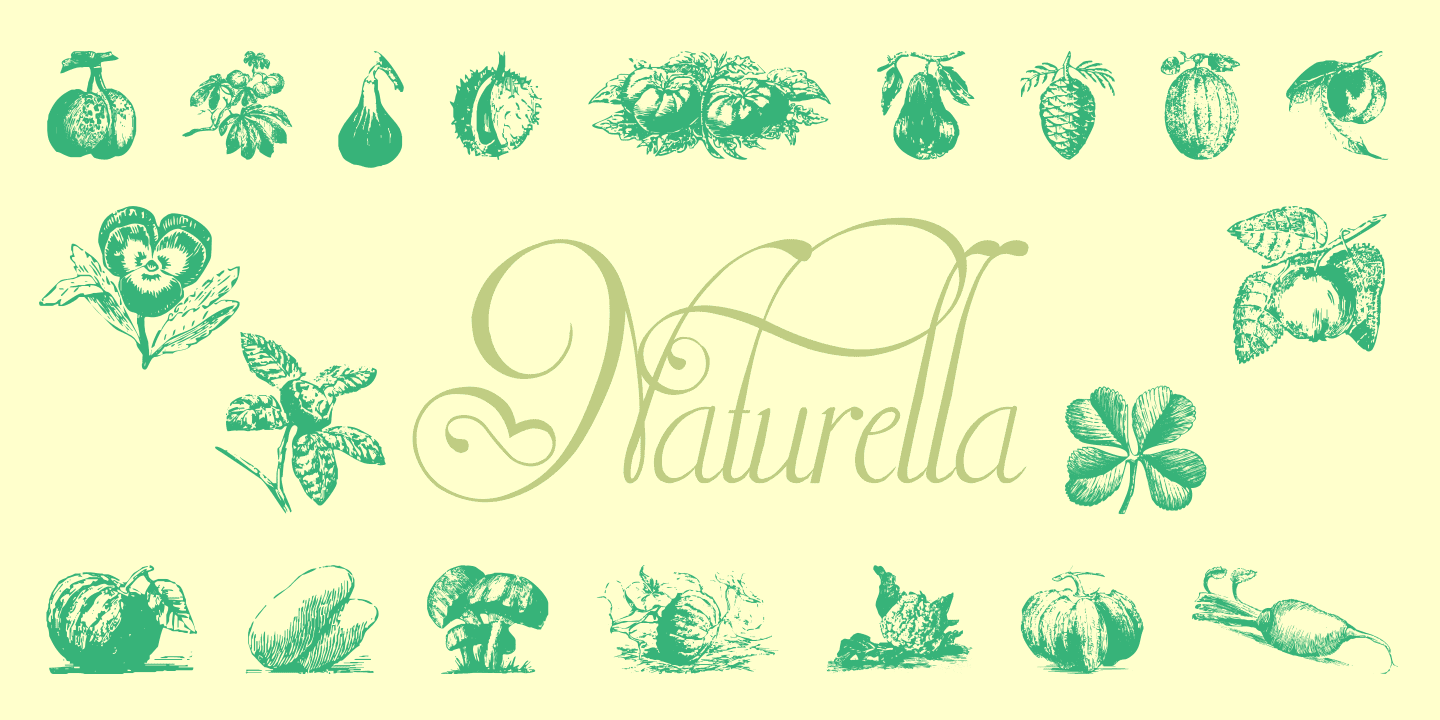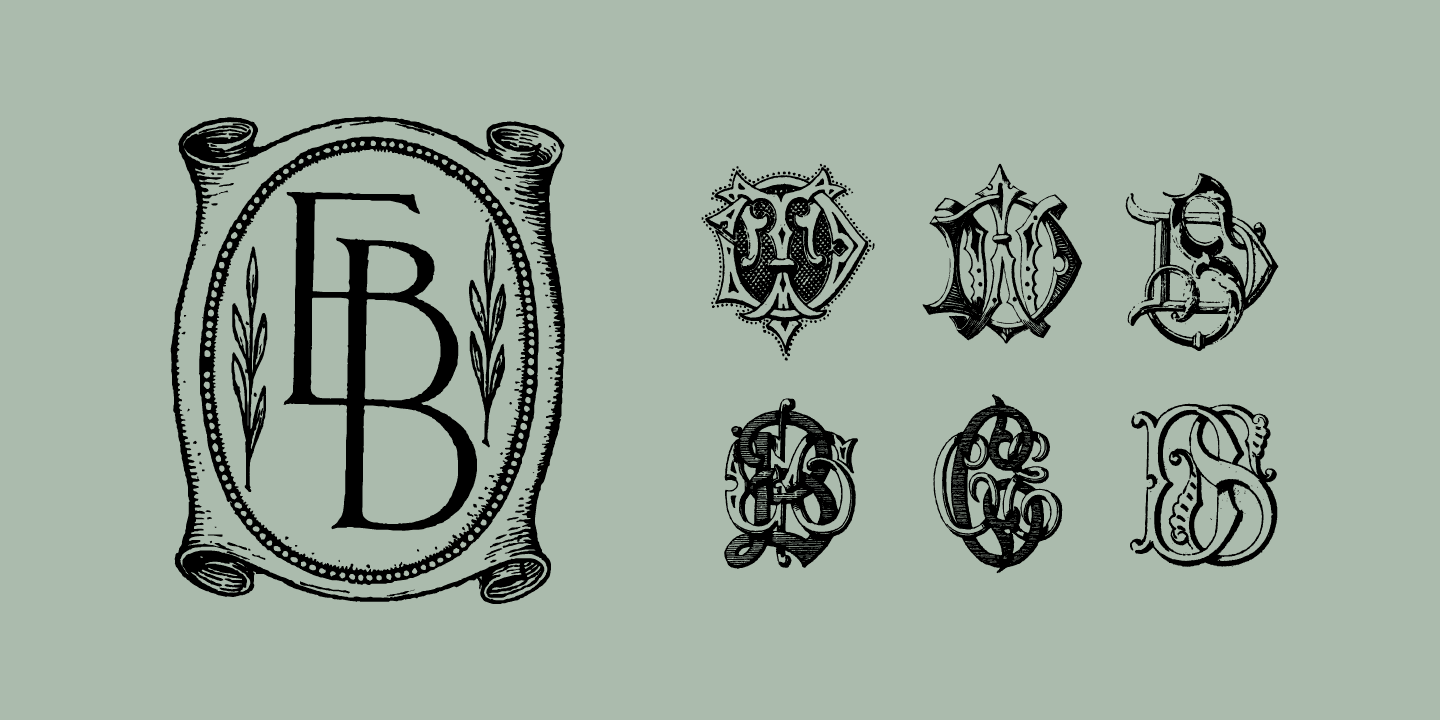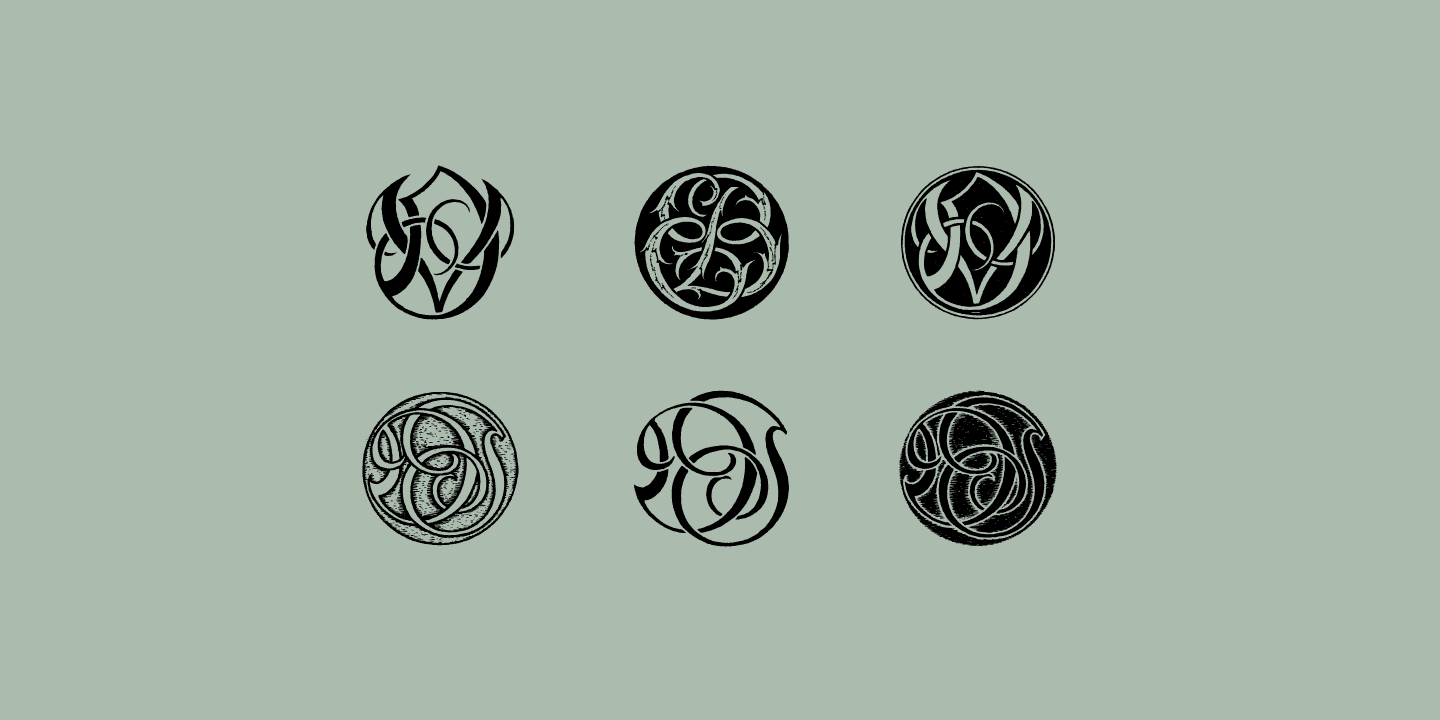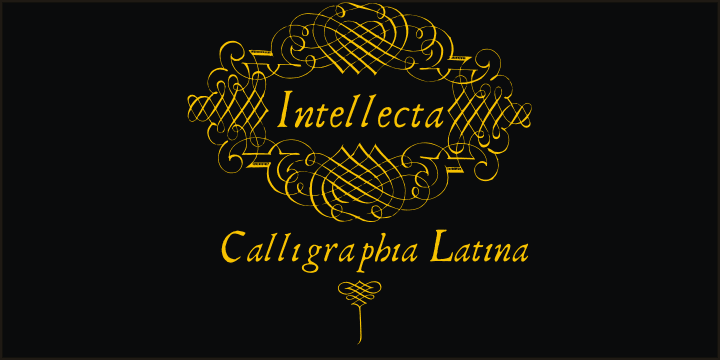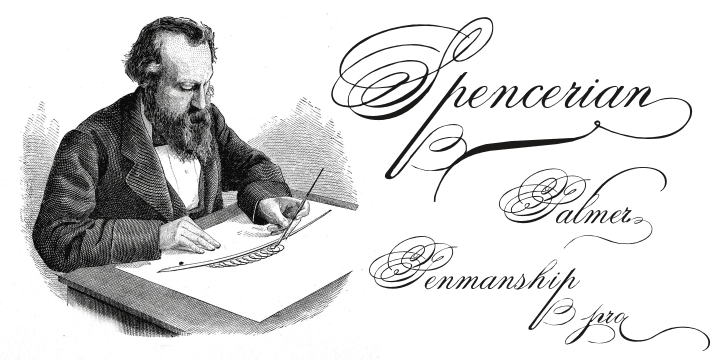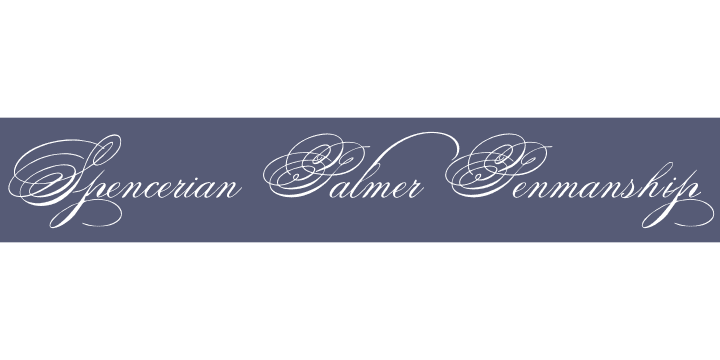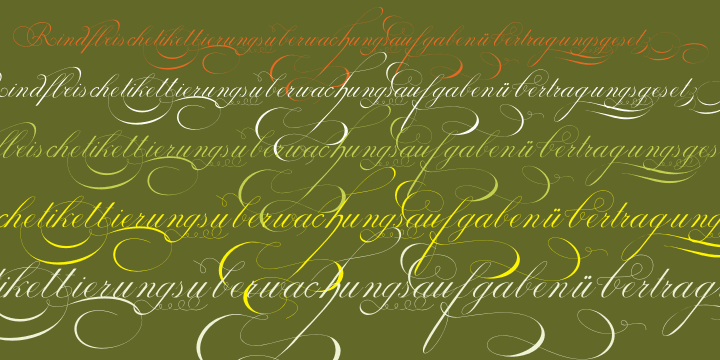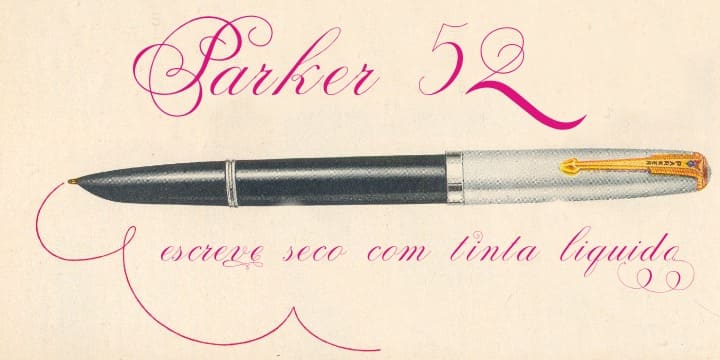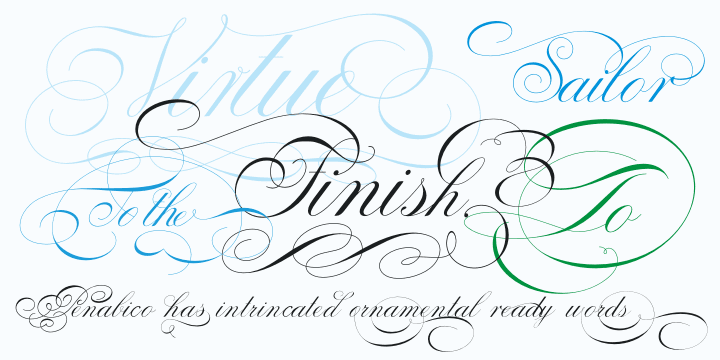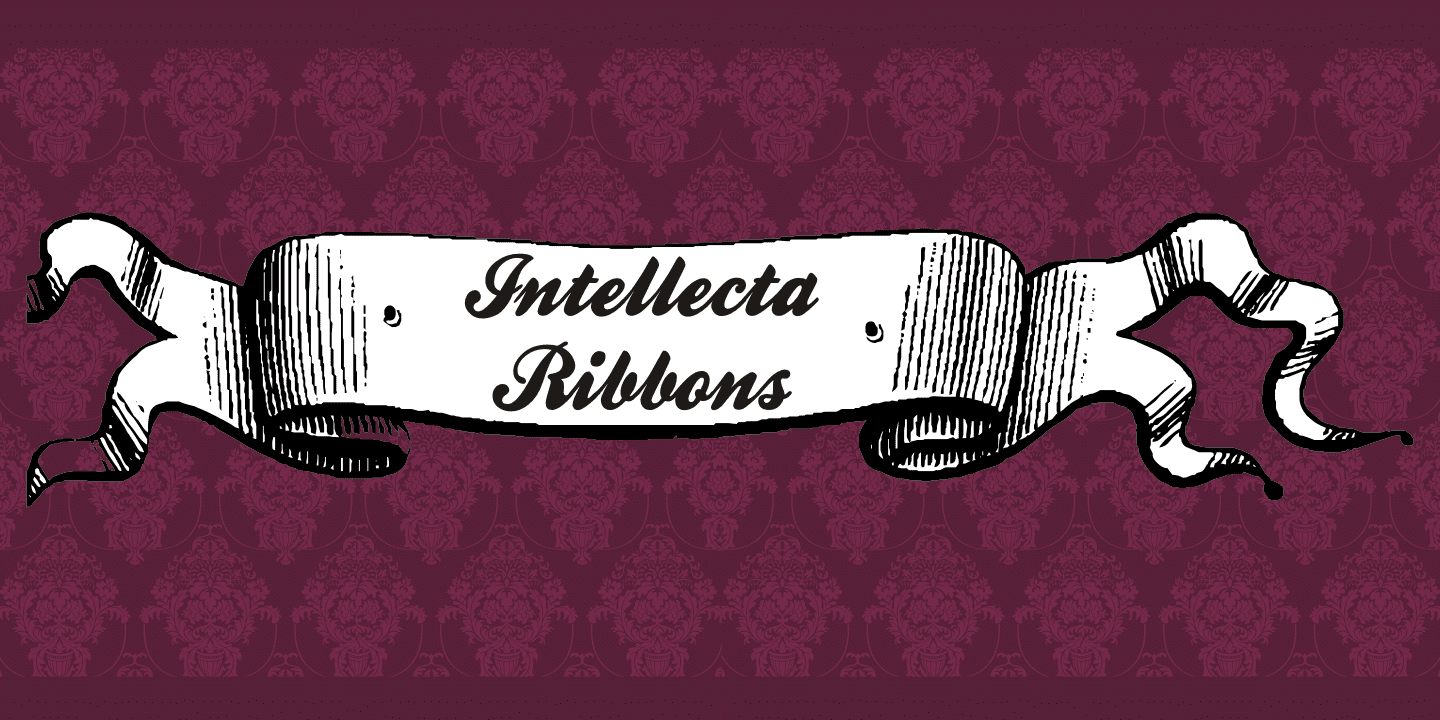
Intellecta Bestselling Collection (43 fonts)
From Intellecta Design
Including the two celebrated fonts CalligraphiaLatina and Penabico (an enhanced OpenType which is a complete solution for producing documents and artworks which need this kind of calligraphic script).
This selection contains a wide variety of styles like classic renaissance fleurons, scripts, typewriter fonts, ribbons, dingbats and the highly popular IntellectaMonograms (36 fonts). An essential addition to all designers and font lovers.
The bundle has 43 fundamental fonts and includes Penabico, Calligraphia Latina, Grave Ornamental, Spencerian Palmer Penmanship, Remington Weather, Intellecta Ribbons, Naturella and 36 Intellecta Monograms fonts.